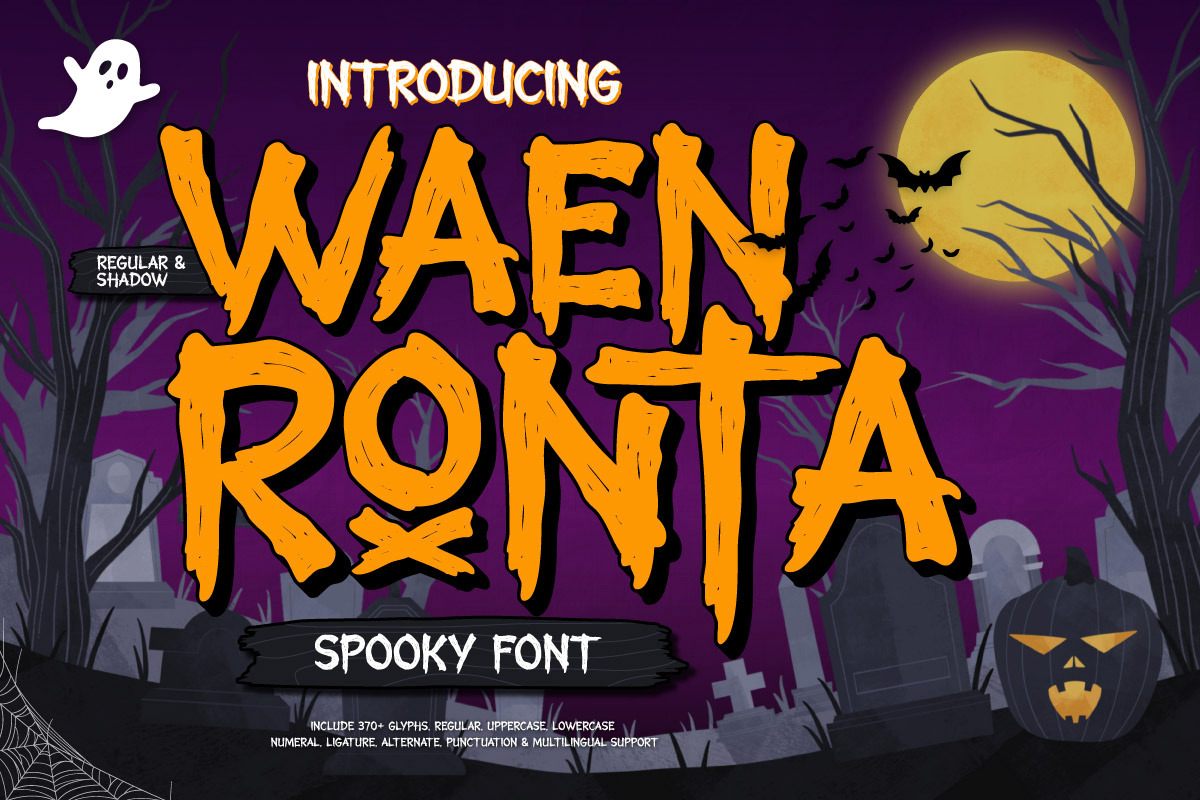
Waen Ronta - Spooky Display Font
Waen Ronta is a spine-chilling spooky display font designed to send shivers down your spine! Featuring two haunting styles—Regular and Shadow—this font is perfect for Halloween themes, horror movie titles, eerie invitations, scary storybooks, and creepy branding materials.
With sharp strokes and unsettling curves, each character in Waen Ronta captures a sense of dread and suspense. The Shadow style adds a ghostly depth, making your text appear to lurk off the page—just like something creeping in the dark. Whether you're designing for haunted houses, thriller posters, or anything delightfully dark, Waen Ronta delivers the perfect eerie atmosphere.
Unleash the fear and let Waen Ronta bring your spooky creations to life—or death.